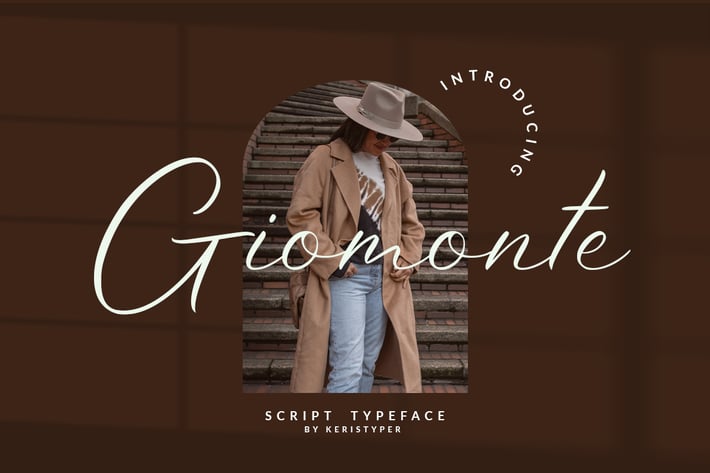
Giomonte Font
Introducing Giomonte Handwritten Script. Signature script font that feels beautiful classy, elegant, and modern. This type of font is perfectly made to be applied especially in logo, and the other various formal forms such as invitations, labels, logos, magazines, books, greeting/wedding cards, packaging, fashion, makeup, stationery, novels, labels, or any type of advertising purpose.